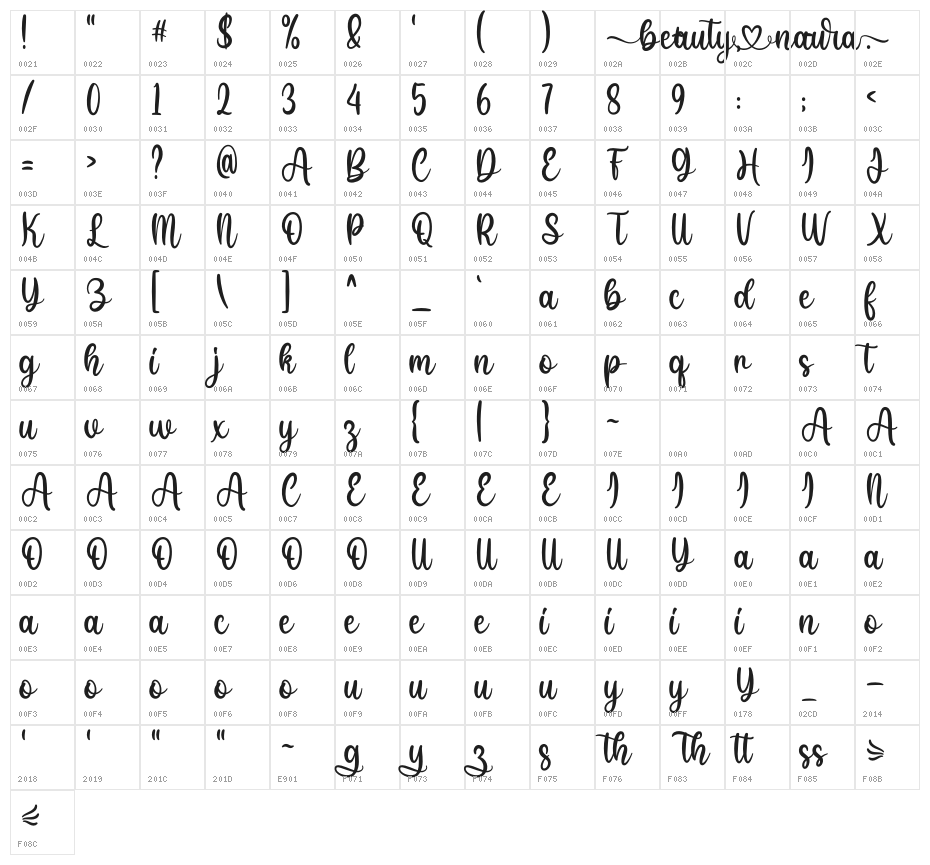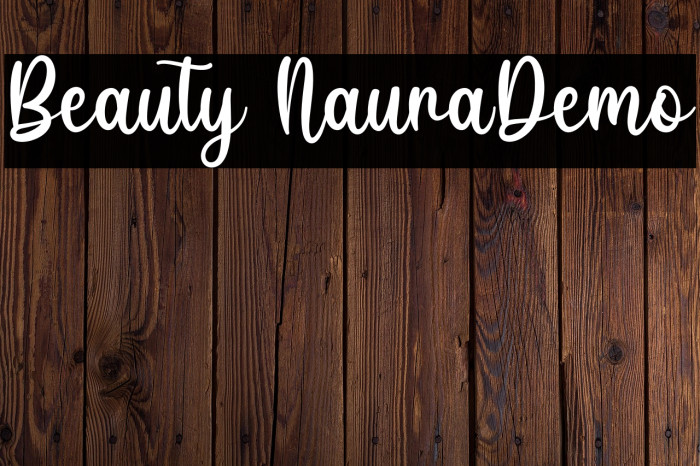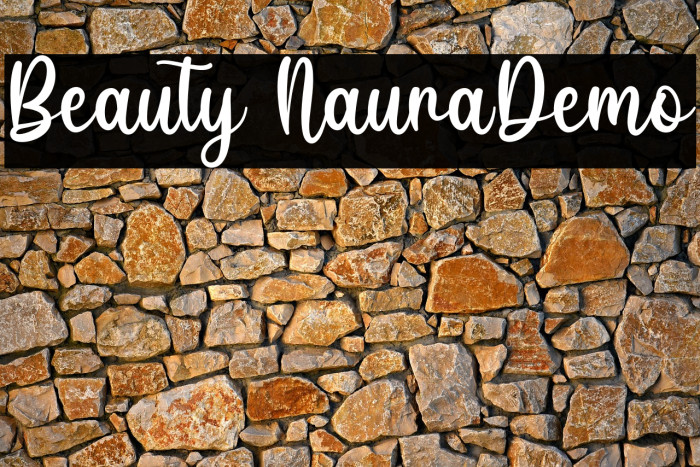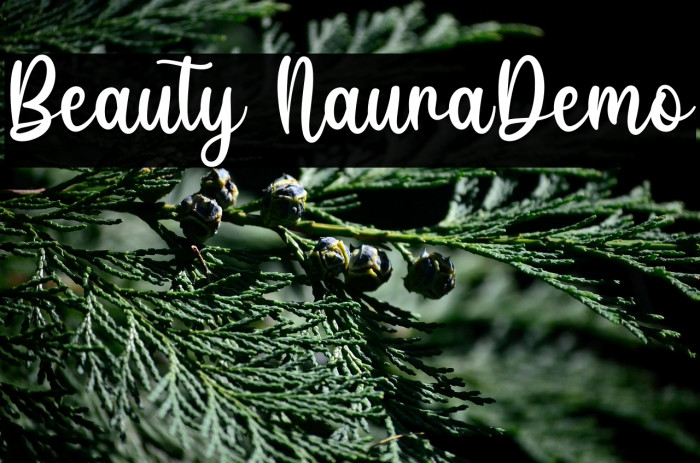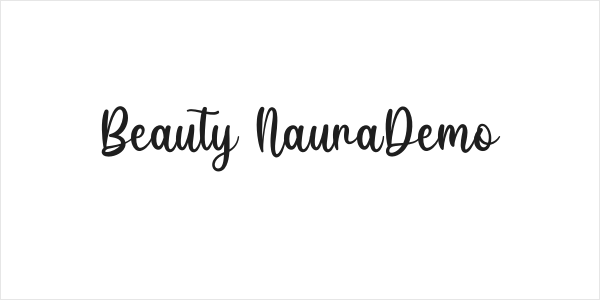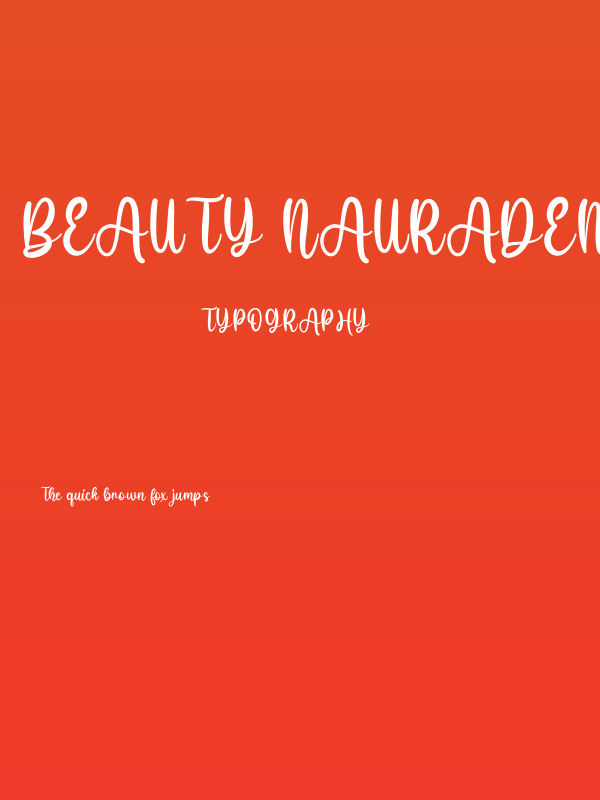
Beauty NauraDemo Font
Beauty NauraDemo Description
This font features a playful and elegant script style with a handwritten appearance. The letters are fluid and connected, giving a sense of movement and grace. The uppercase letters are bold and slightly larger, while the lowercase letters maintain a consistent flow with occasional loops and swirls. The numbers are clear and easy to read, matching the overall style. Special characters are creatively integrated, adding to the font's charm. This font is perfect for projects that require a personal touch or a sense of sophistication.
Use CaseLogos, Invitations, Headlines
Proposed ProjectsIdeal for wedding invitations, greeting cards, branding, and social media graphics.